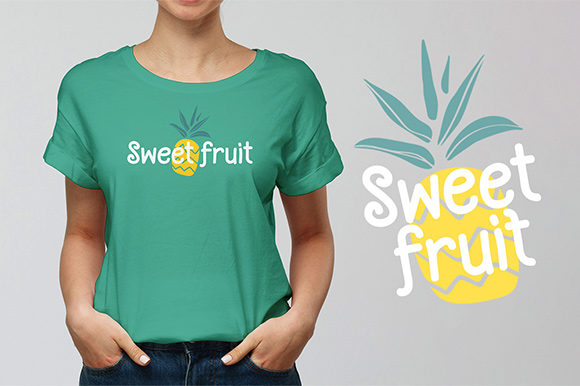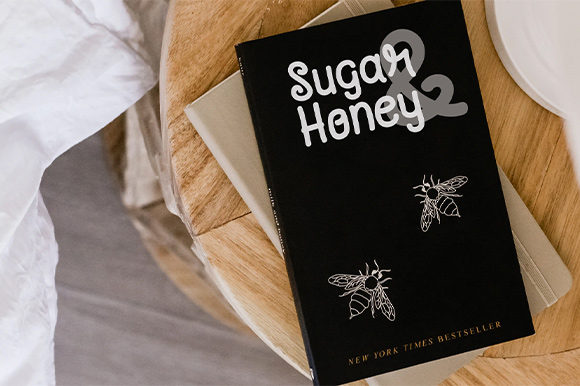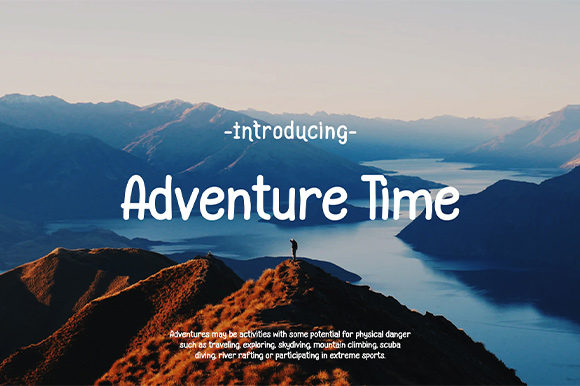
Introduction to Pineapple Grass Font
As designers, we’ve all been there – staring at a blank canvas, searching for the perfect font to bring our creative project to life. The search can be overwhelming, but what if you stumbled upon a font that not only meets your expectations but exceeds them? For those who crave a touch of personality and charm in their designs, the Pineapple Grass Font is a game-changer.
This sweet handwritten font is a true gem, carefully handcrafted to provide a down-to-earth feel that’s both readable and versatile. Whether you’re working on a high-quality design project or simply need a reliable font for a quick free download, Pineapple Grass Font is the perfect addition to your design resource arsenal.
Pineapple Grass Font
- Unique, hand-drawn design with a tropical twist, perfect for creative projects and designs.
- Perfect for designers and artists working on projects that require a fun, playful, and creative touch.
Honest Review: Pineapple Grass Font
I recently stumbled upon the Pineapple Grass Font, and I must say it’s a unique find. As a designer, I’m always on the lookout for high-quality design resources that can elevate my creative projects. This font definitely fits the bill.
- ✨ The font’s playful, handwritten feel makes it perfect for adding a touch of whimsy to any project.
- ⚠️ The font may not be suitable for formal or professional projects, given its casual, handwritten nature.
- ⚠️ Some users may find the font’s irregularities distracting or difficult to read.
Overall, I’m impressed with the Pineapple Grass Font’s unique character and versatility. While it may not be suitable for every project, it’s definitely a valuable addition to any designer’s toolkit. If you’re looking for a creative solution to add some personality to your designs, this font is definitely worth checking out.
The Pineapple Grass Font is ideal for various creative projects, including:
- Food and drink labels
Alternatives to Pineapple Grass Font
Great Vibes Font is a high-quality, handwritten font perfect for creative projects requiring a fun and casual tone. It features a transparent background and can be downloaded for free. This font is ideal for headings, titles, and short phrases where a touch of personality is needed.
Compared to Pineapple Grass Font, Great Vibes Font has a more relaxed, carefree feel, making it suitable for projects like wedding invitations, food blogs, or social media graphics.
Pacifico Font is a modern, elegant script font suitable for high-end design projects requiring sophistication and refinement. It features a transparent background and can be downloaded for free. This font is ideal for long paragraphs, body text, and titles where a sense of luxury is desired.
Pacifico Font is more formal and polished than Pineapple Grass Font, making it suitable for projects like corporate brochures, luxury brand marketing materials, or high-end website designs.
Alex Brush Font is a beautiful, elegant script font perfect for design projects requiring a touch of sophistication and creativity. It features a transparent background and can be downloaded for free. This font is ideal for headings, titles, and short phrases where a sense of elegance is needed.
Alex Brush Font is more refined and delicate than Pineapple Grass Font, making it suitable for projects like wedding invitations, baby shower invitations, or high-end website designs.